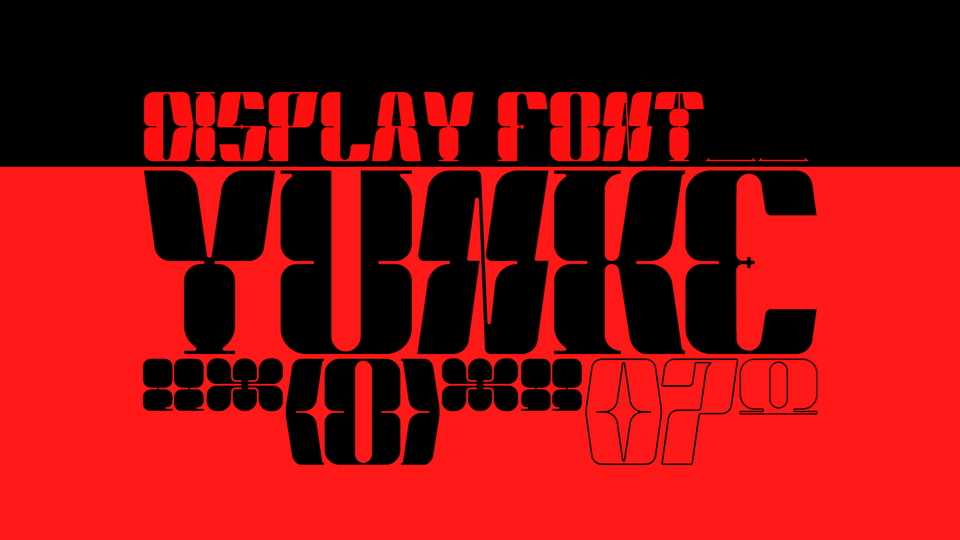
Download YUNKE font, a display typeface inspired by the sci fi movies from the 70’s and 80’s. Made to carry you to those nostalgic futures that we never lived, but look familiar to us.